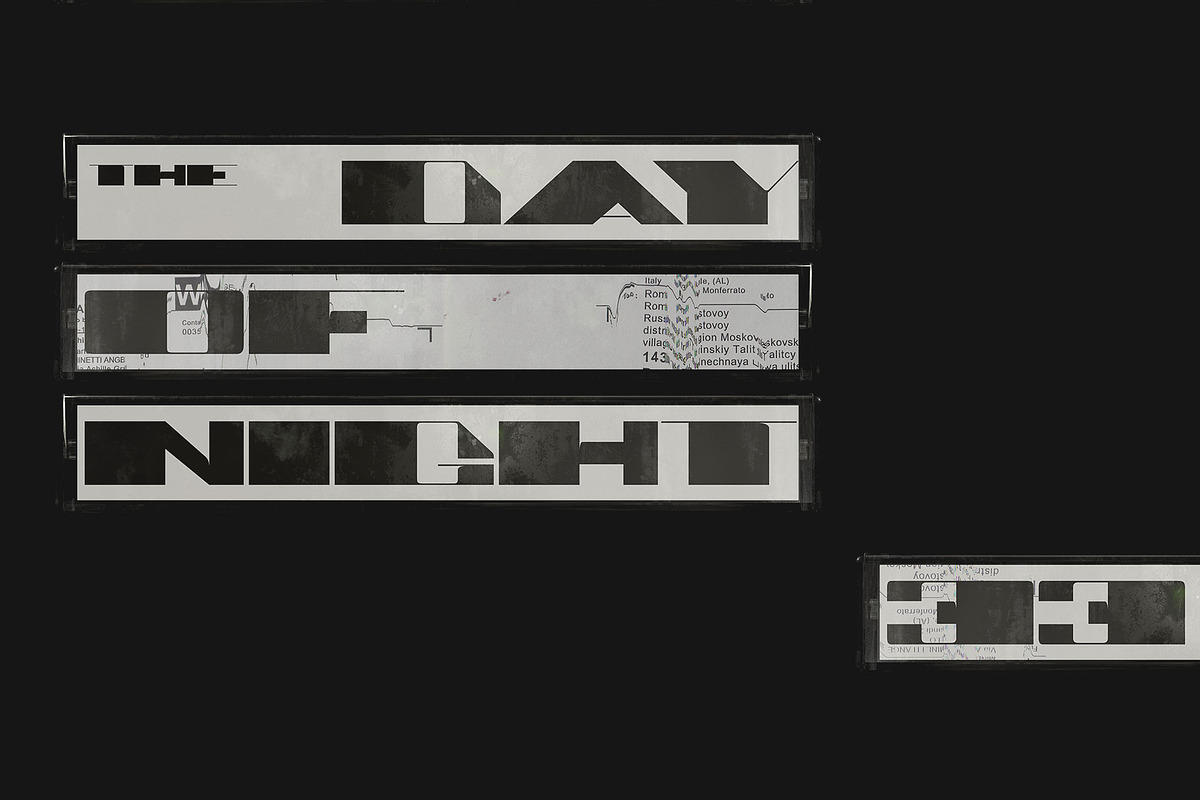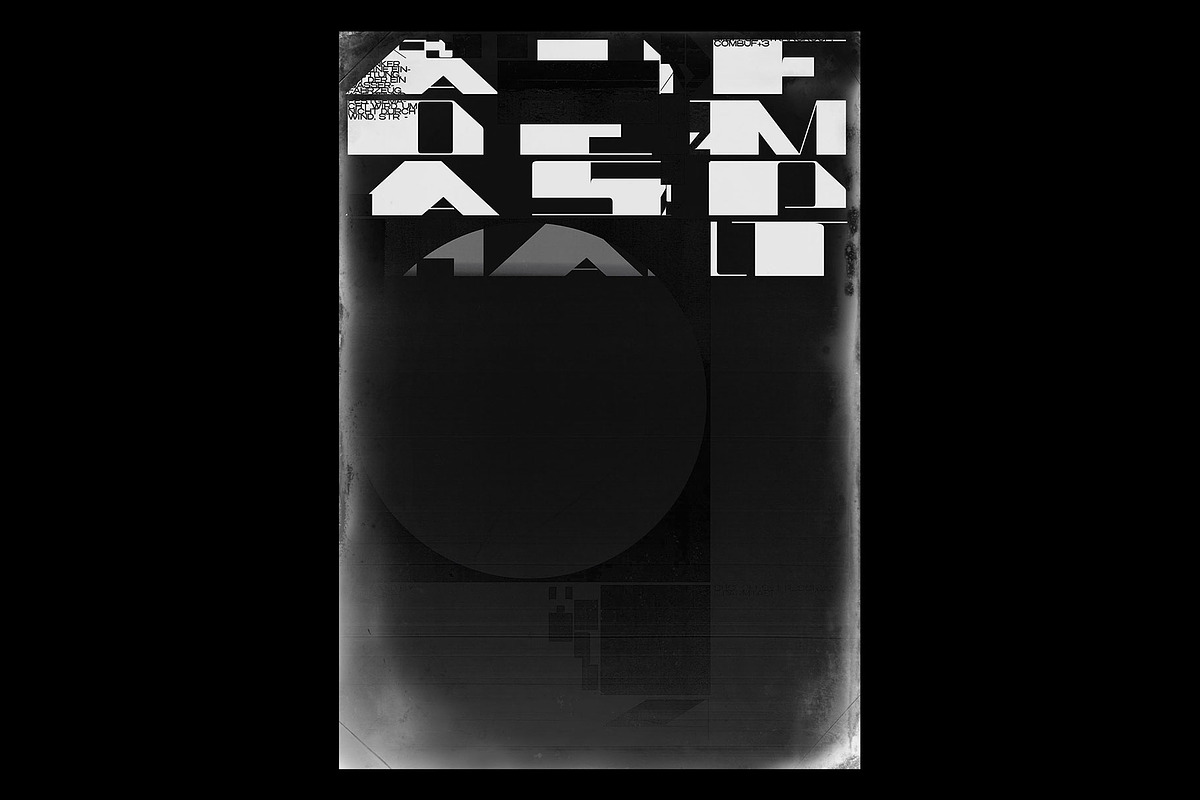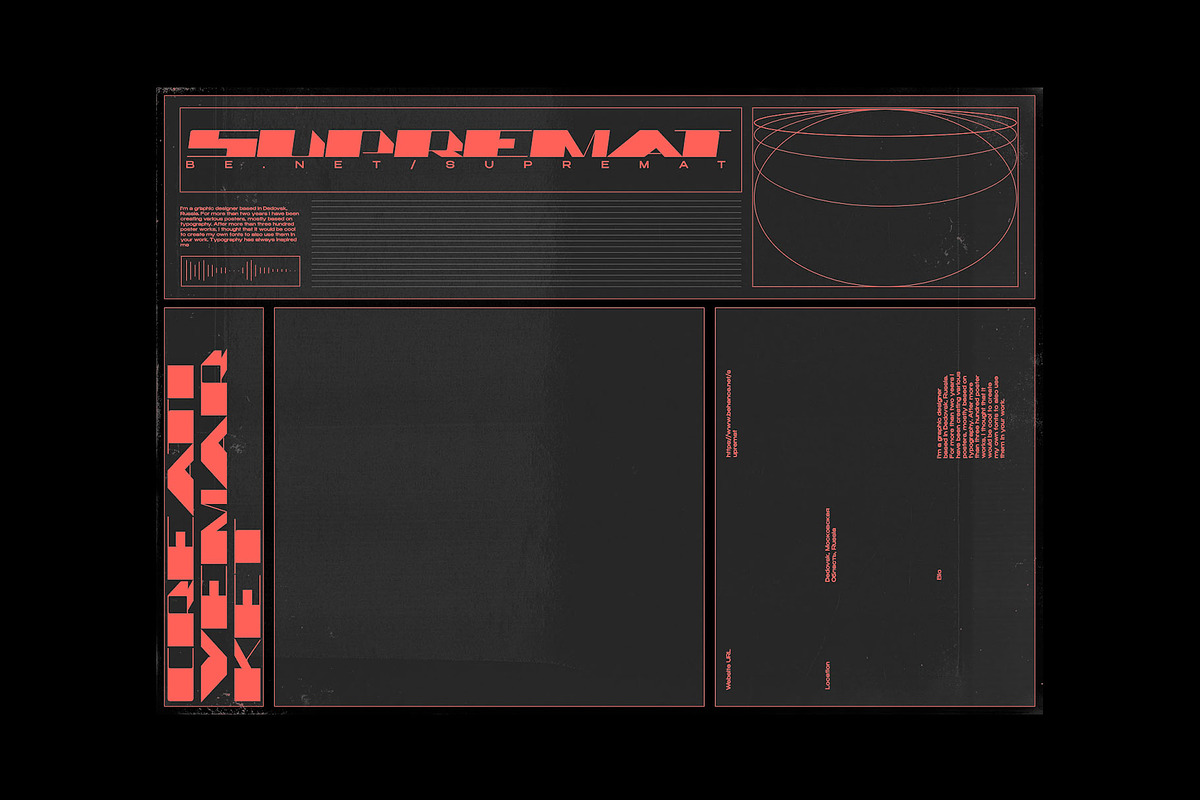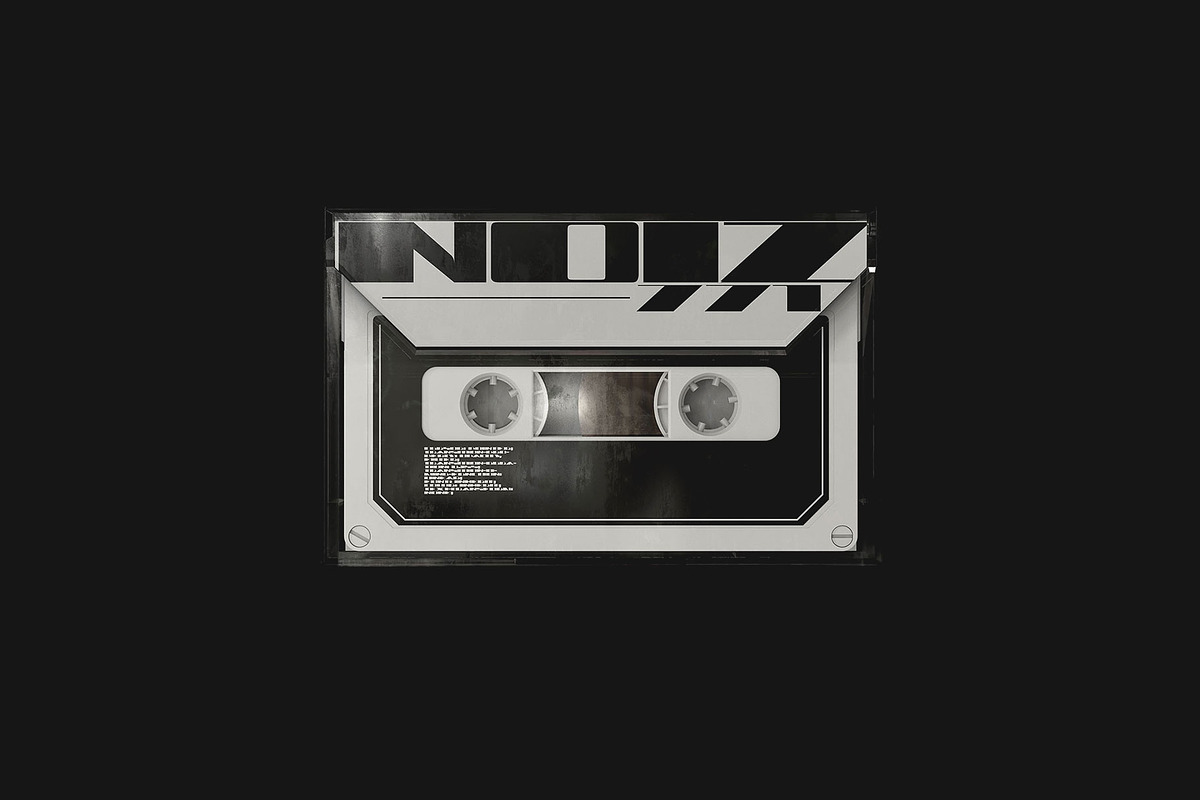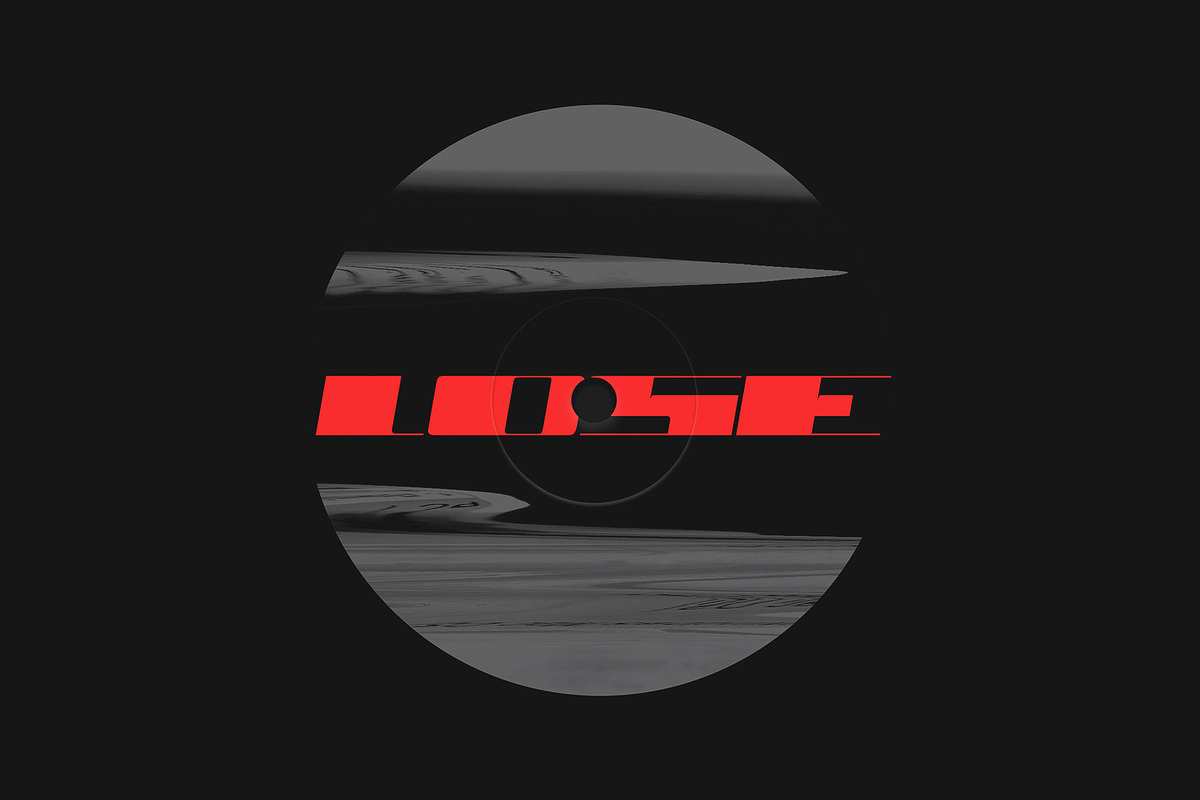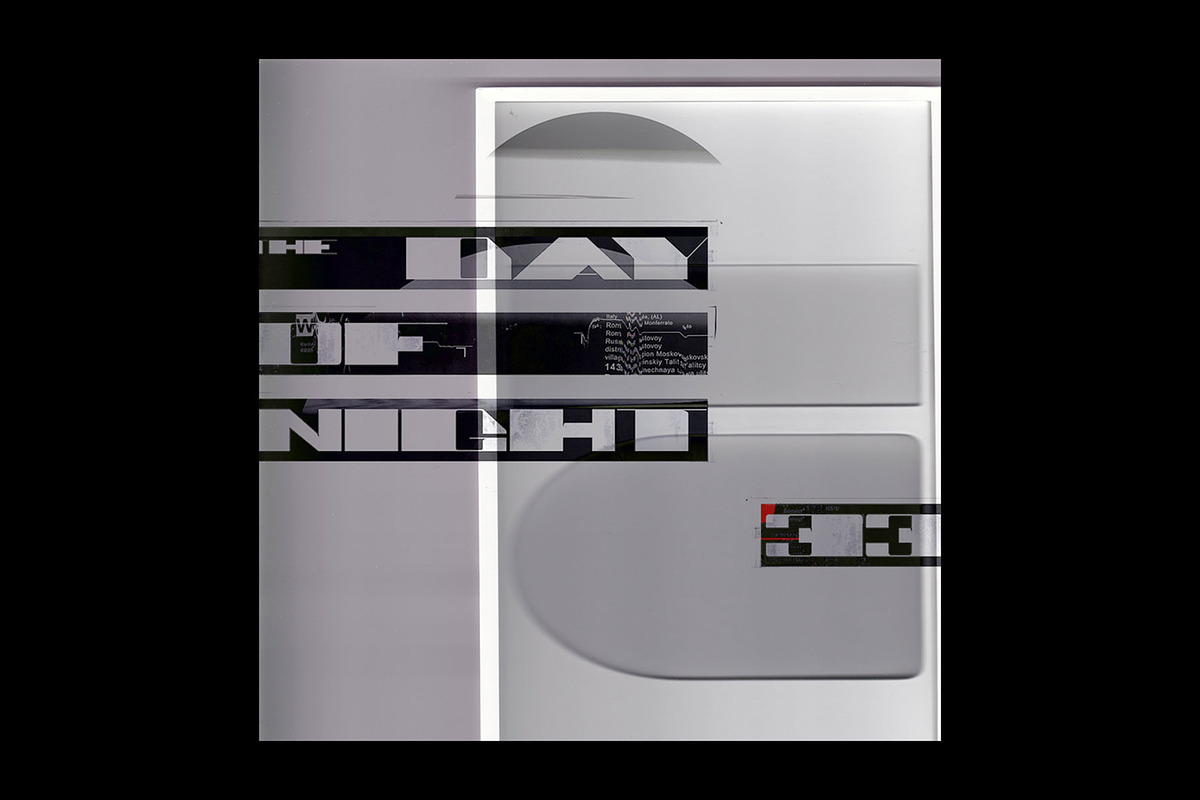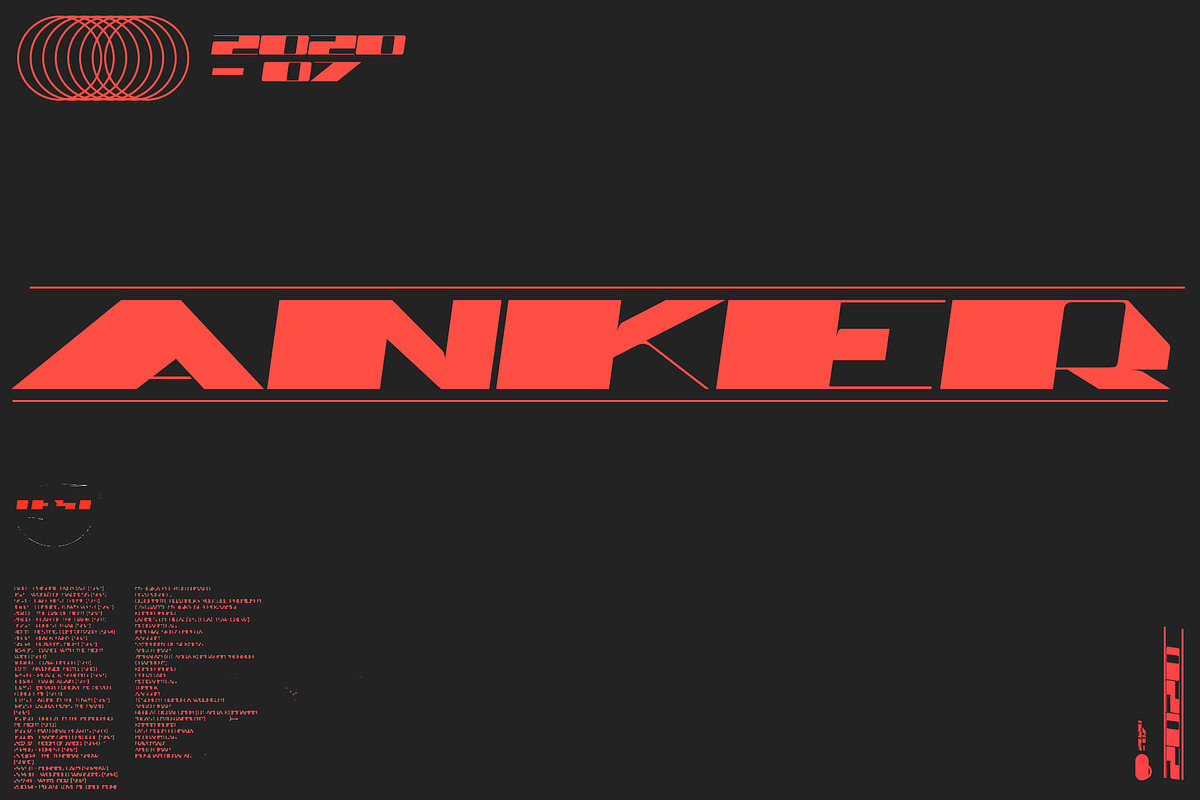
Anker Typeface
Anker is a super-wide and heavy typeface. At the same time, it has a very large contrast between vertical and horizontal stems. This gives it a certain defiant and aggressive character.
The name Anker means anchor in German. That is something very heavy in weight and at the same time has sharp and thin elements in the design. This is reflected in the Anker.
Suitable for super large titles, short words, logos or typographic compositions.